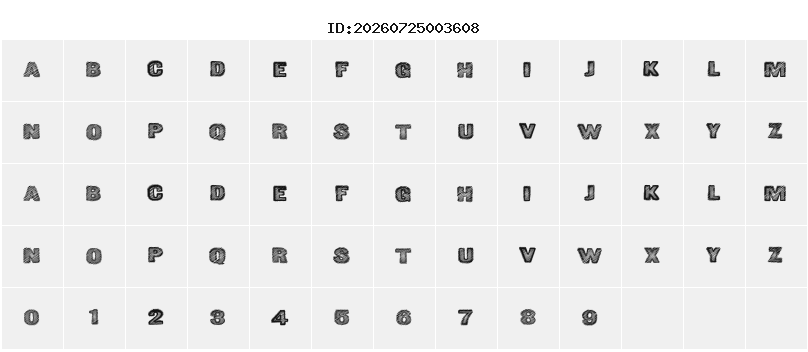
• Font Name: GreatShake
• Full Font Name: GreatShake
• Version: Version 1.00 February 9, 2015, initial release
• Designer: Xerographer Fonts Max Infeld
• Manufacturer: Xerographer Fonts
• Description: Made at Xerographer Studios in Oroville,CA
About GreatShake.ttf
GreatShake.ttf is a modern, elegant sans-serif font designed for ultimate readability and visual harmony. Perfect for branding, headlines, web design, and print materials.